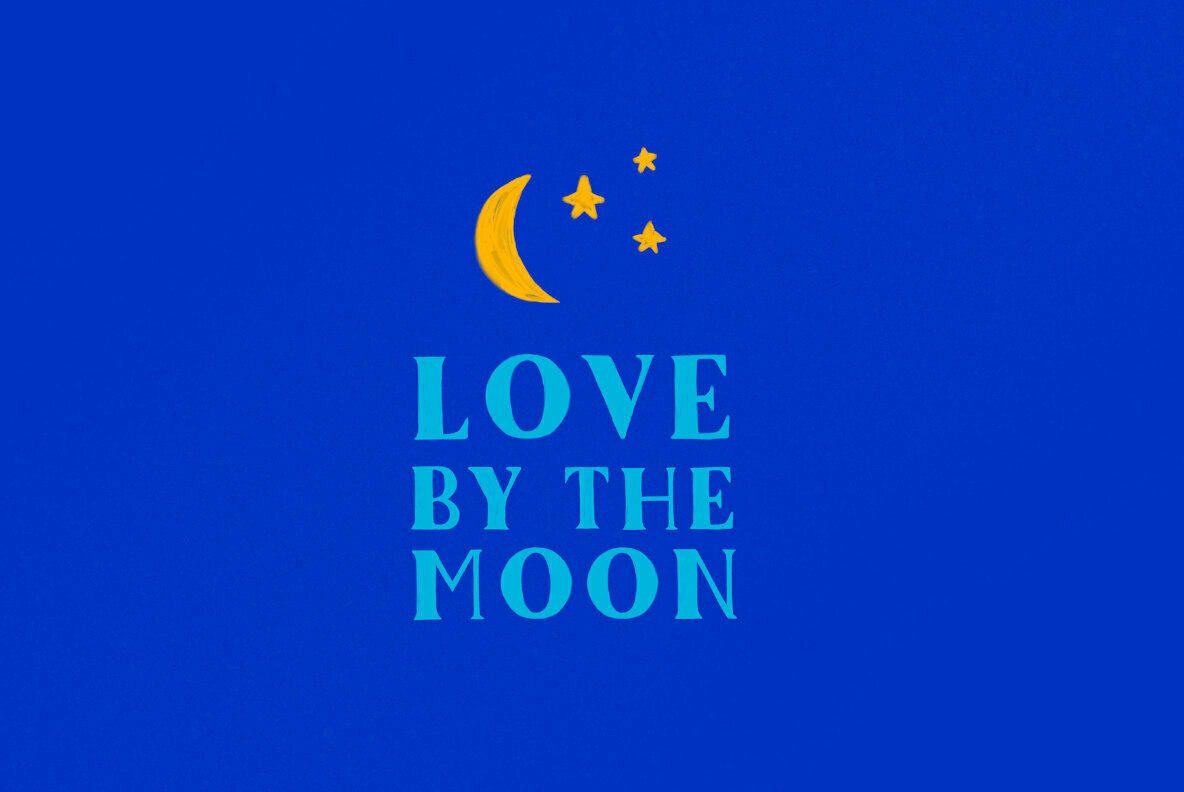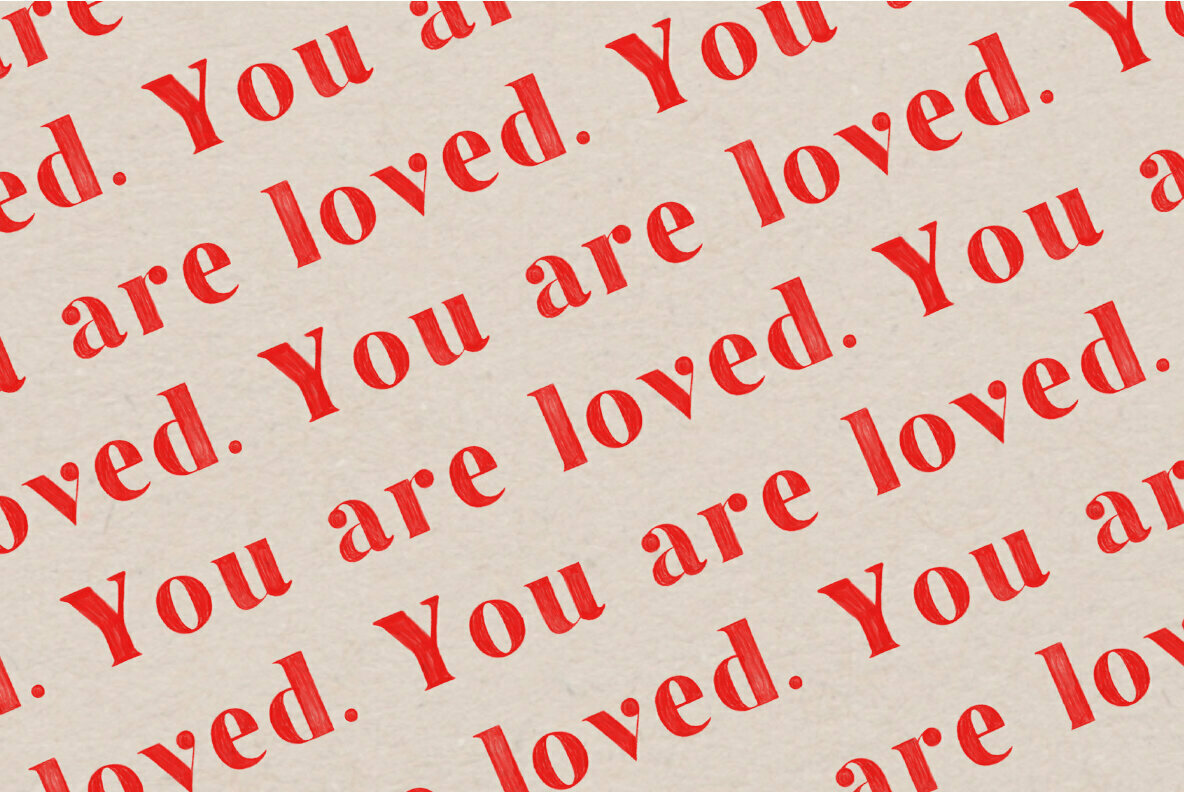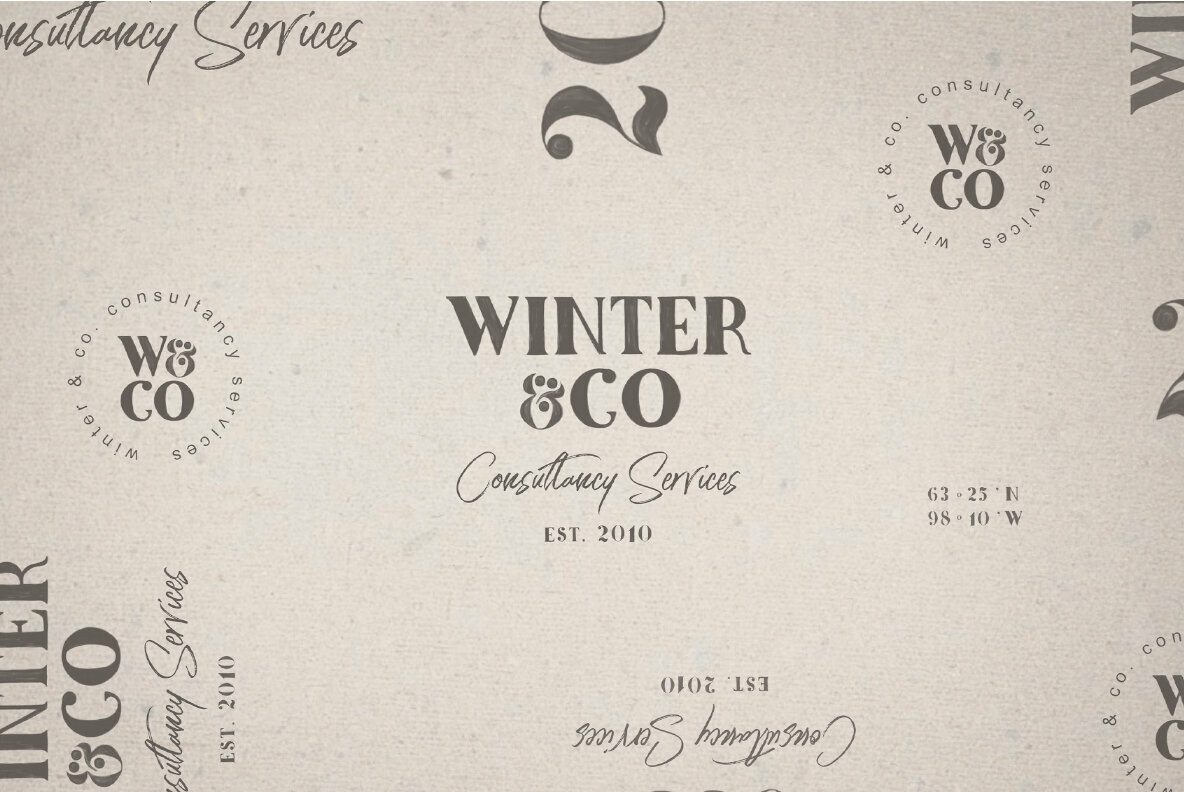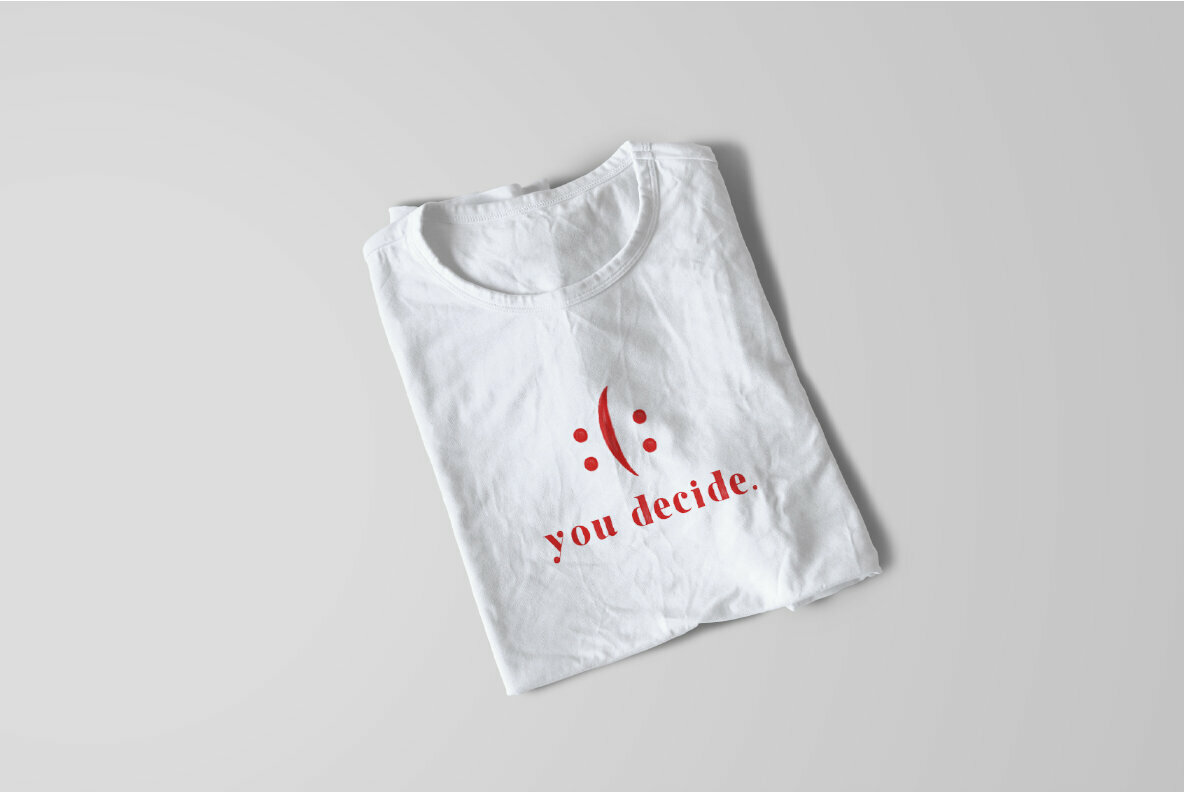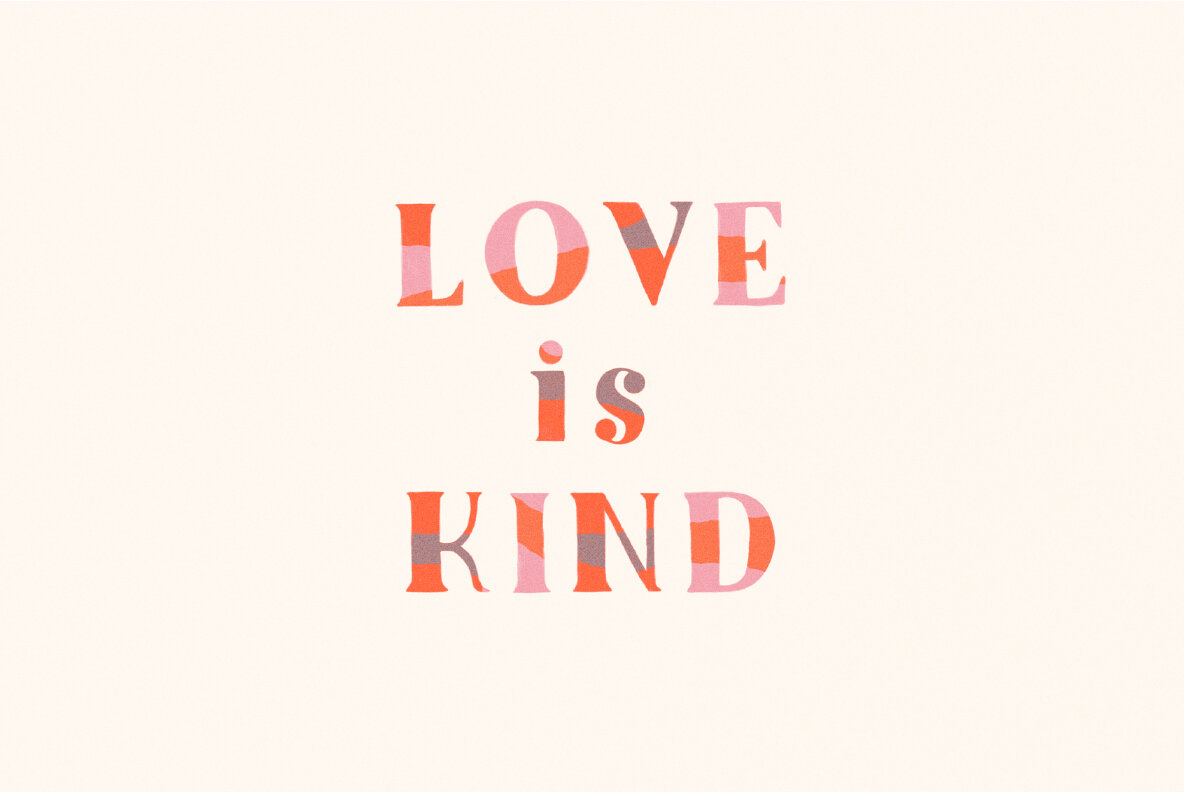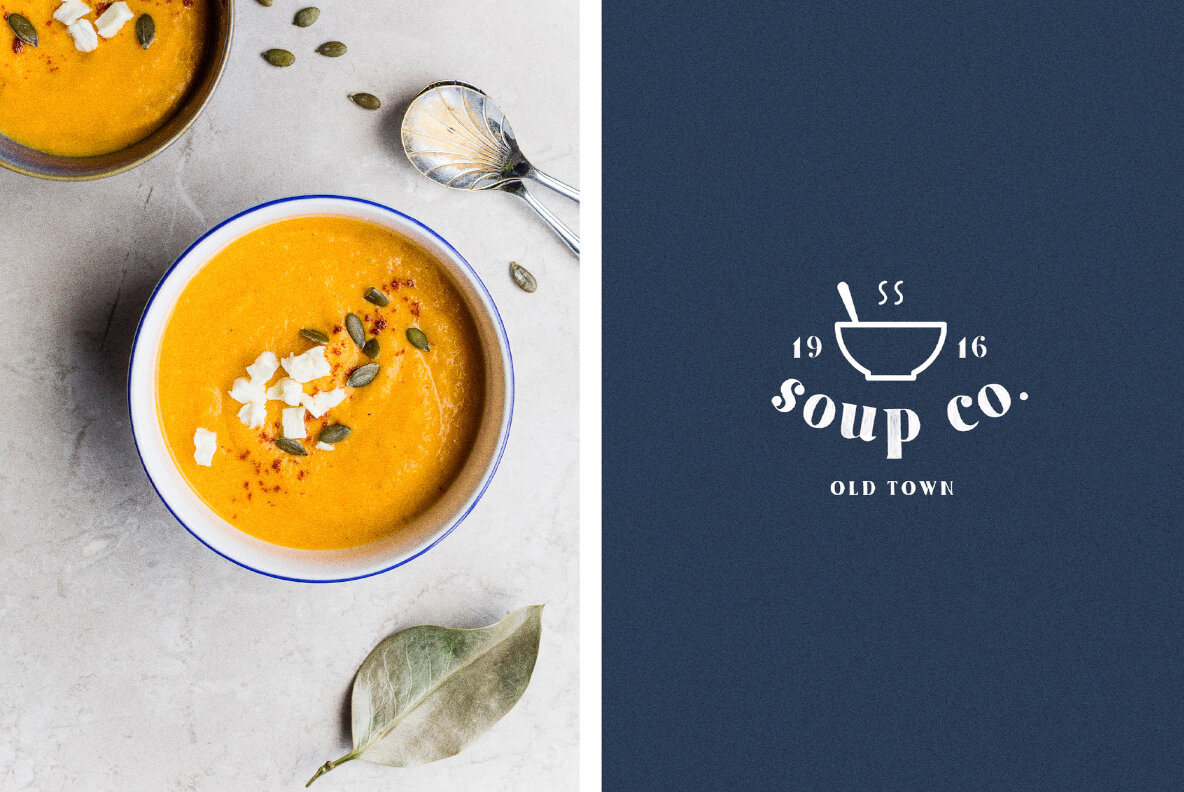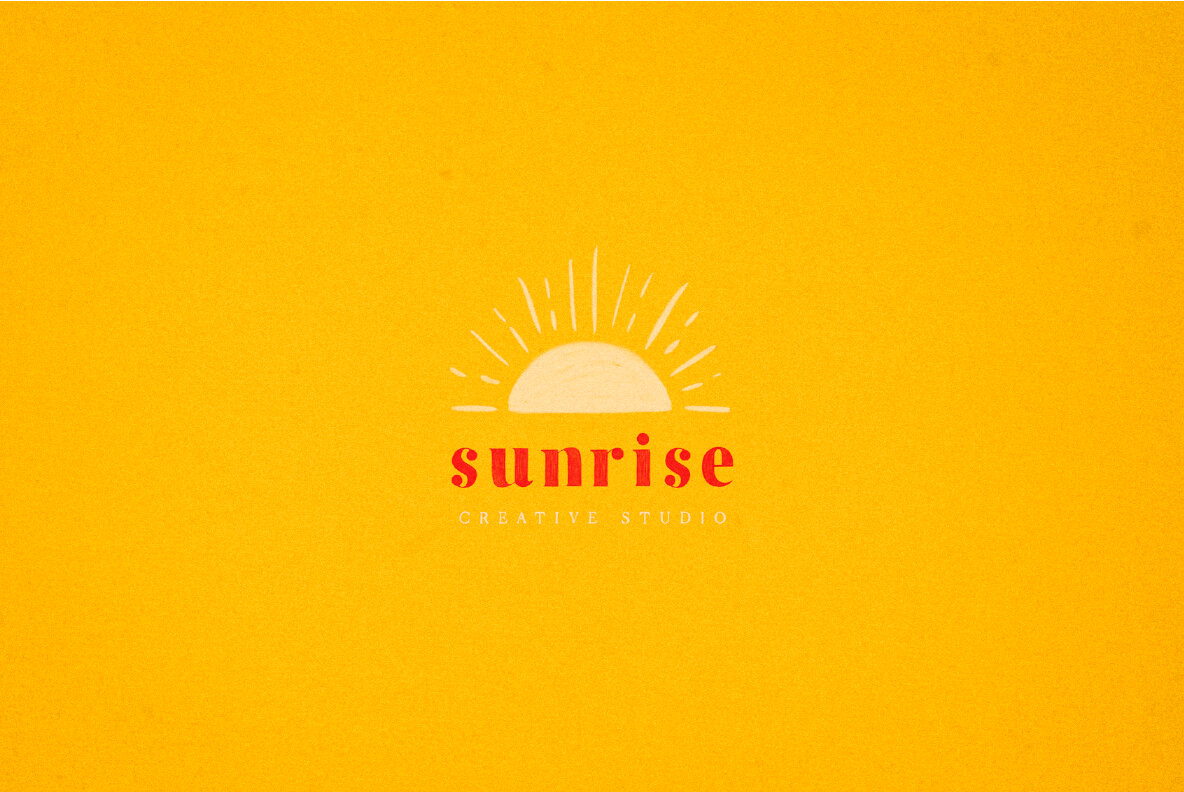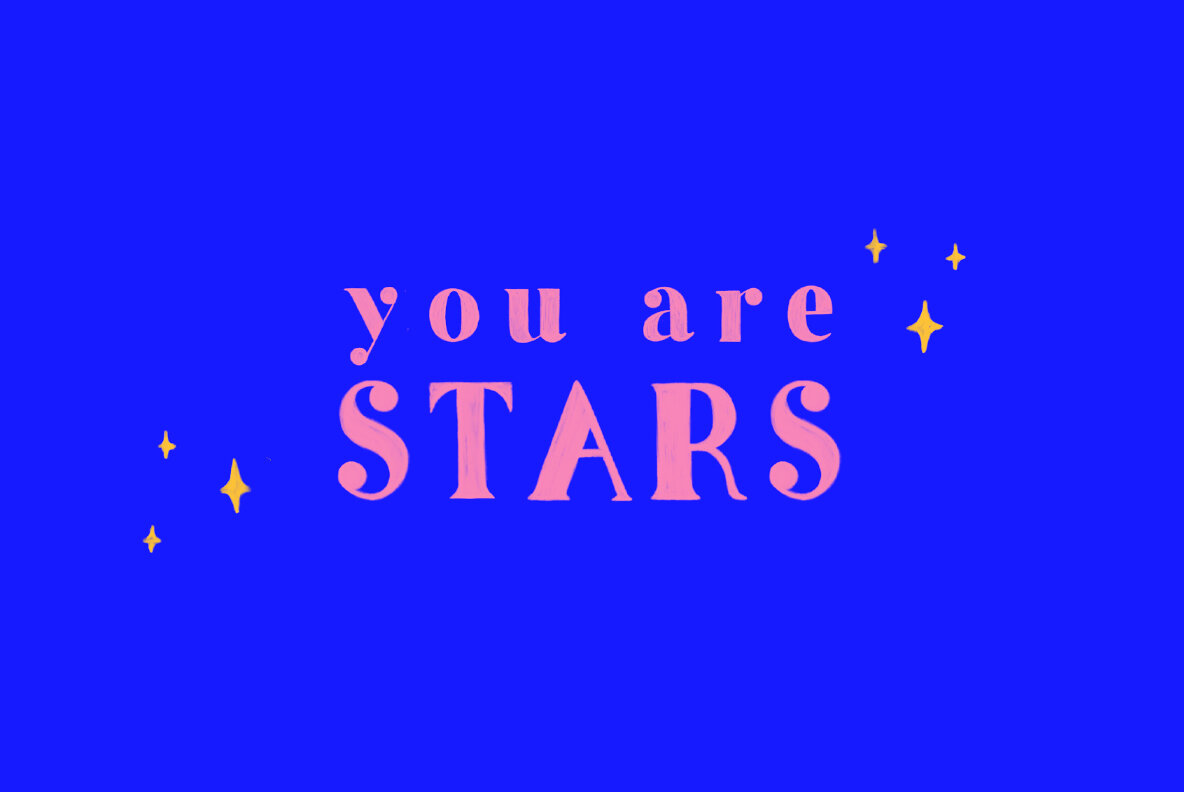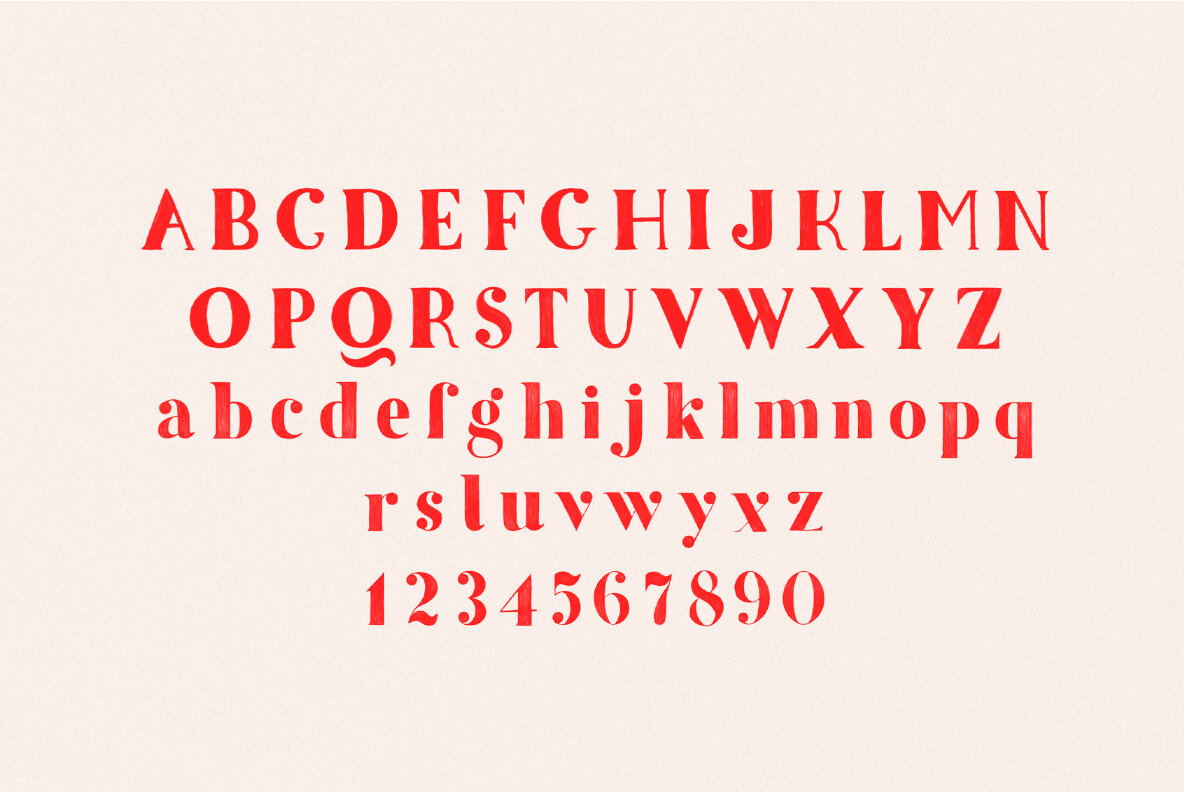
Magic Colour SVG Font
Magic Colour SVG Font and Extras (2 fonts)
The Magic Colour SVG Font presents a vivid typographic solution tailored for creatives seeking a playful yet professional edge. Ideal for digital designers using Adobe Photoshop CC 2017 or Illustrator CC 2018 and beyond, this font offers a collection of uniquely painted letters that deliver a lively visual impact. Features: This font exclusively supports English, making it perfect for projects targeting English-speaking audiences. Infuse your work with a burst of color and creativity with the Magic Colour SVG Font.Magic Colour SVG Font: Vibrant Typography with Unique Doodles